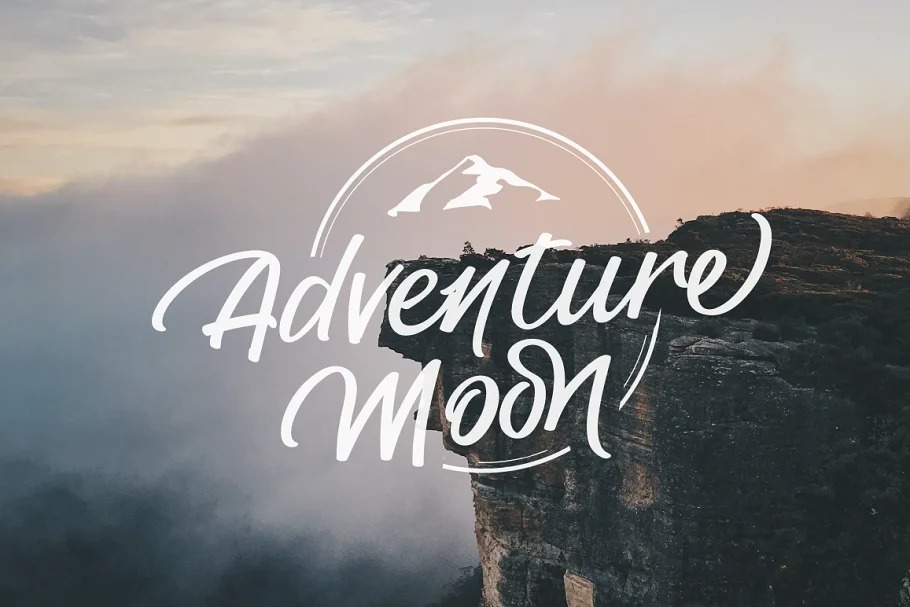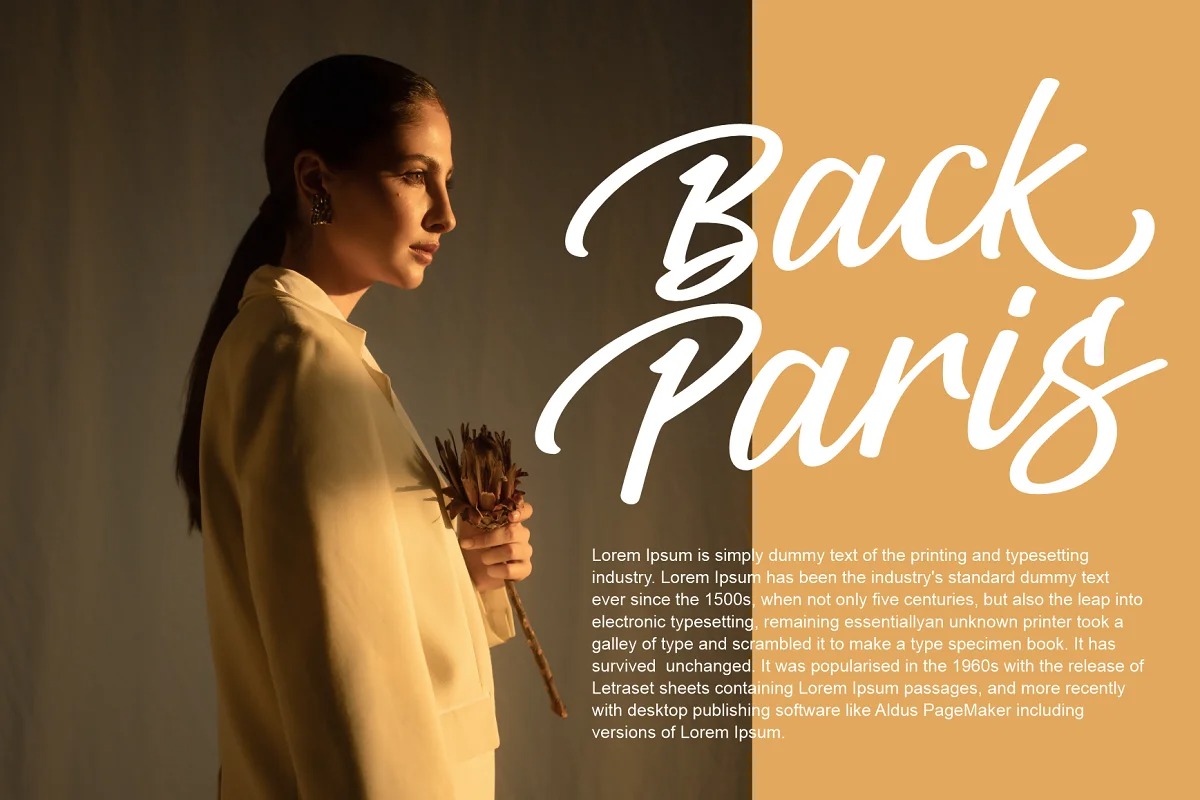
Delhus Fyione Script Font
This is a bold script font, complemented by an alternative uppercase. It has an elegant and smooth style and is perfect for making any design stand out. Delhus Fyione has a font ligature that will add a natural handwriting to your writing. The font has Great for head title, printed quotes, greeting card, invitation, wedding, events and etc.